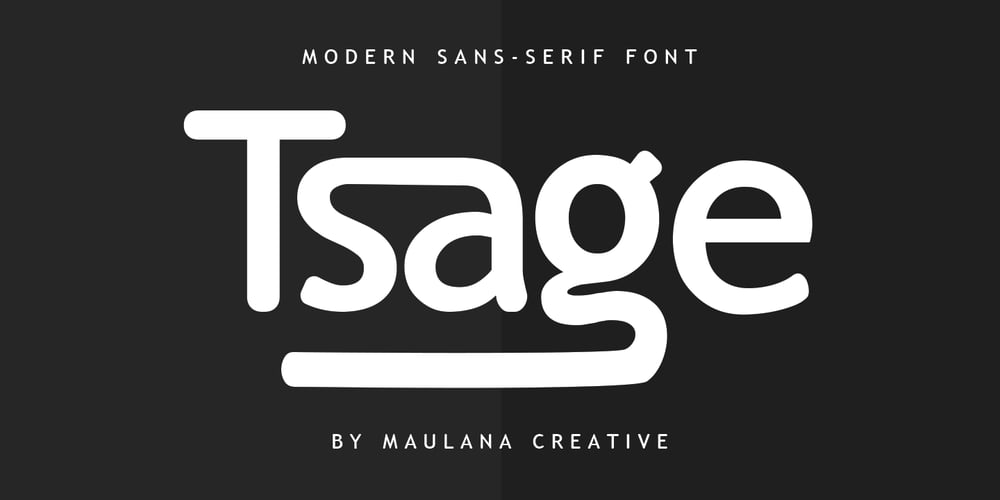
MC Tsage Font Family was designed by Gilang Maulana and published by Maulana Creative. MC Tsage contains 1 styles and family package options. Tsage is a display font. With a modern stroke, fun character with a bit of ligatures and awesome alternates. To give you an extra creative work, Tsage font support multilingual language. This font is good for logo design, Social media, Movie Titles, Books Titles, a short text even a long text letter and good for your secondary text font with sans or serif. Make a stunning work with Tsage font.